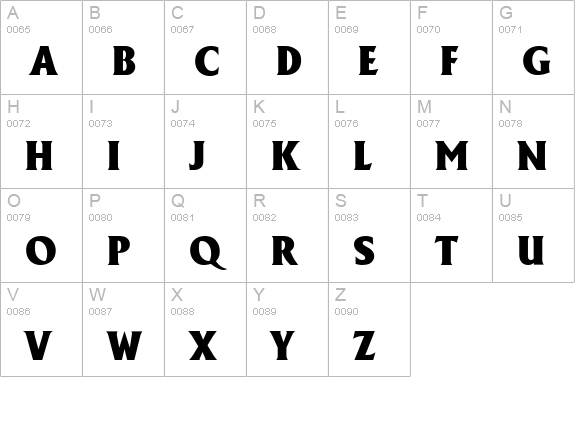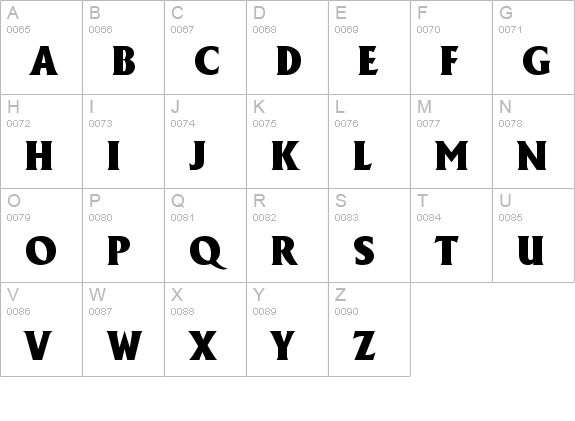
AdelonSerial-Heavy-Regular is a heavy, high-impact variant in the AdelonSerial typeface family \xE2\x80\x94 well suited to high-impact headlines, posters, and display advertising.
AdelonSerial-Heavy-Regular is a robust and versatile font that exudes strength and elegance. With its bold and commanding presence, this typeface is perfect for making a statement in any design project. The strong, thick strokes and clean lines of AdelonSerial-Heavy-Regular give it a modern and sophisticated look that is sure to grab attention. This font is ideal for headlines, titles, logos, and any other design element that requires a bold and impactful typeface. Whether you're creating a poster, website, or branding materials, AdelonSerial-Heavy-Regular will help you stand out from the crowd. Best of all, AdelonSerial-Heavy-Regular is available for free download at FontsMarket.com. So, you can easily access this stunning font and incorporate it into your projects without any cost. Don't miss out on the opportunity to elevate your designs with the striking beauty of AdelonSerial-Heavy-Regular. Download it now and unleash your creativity!